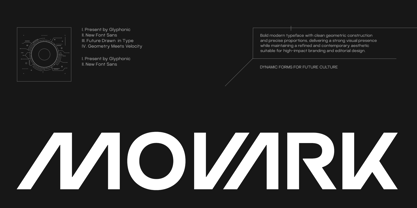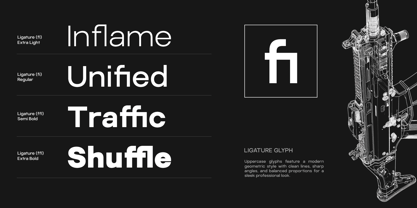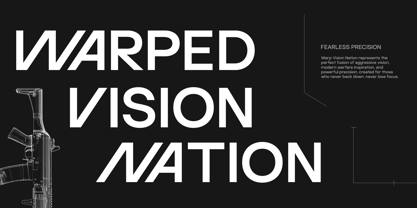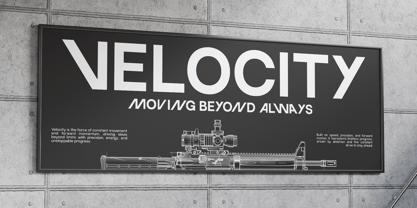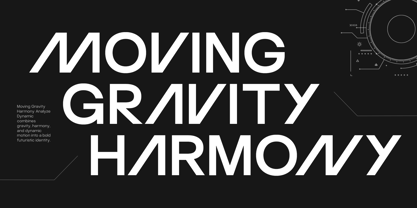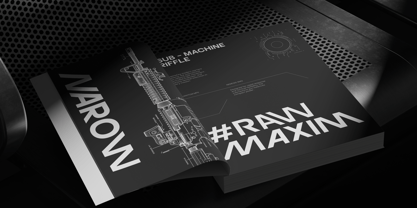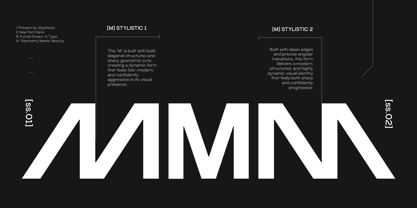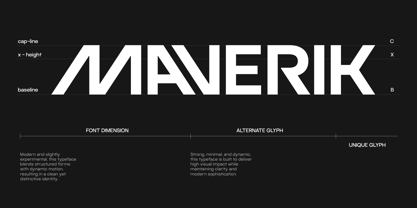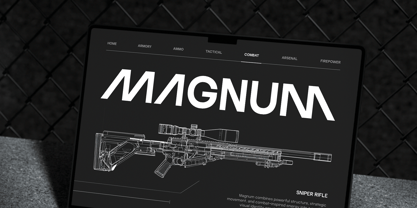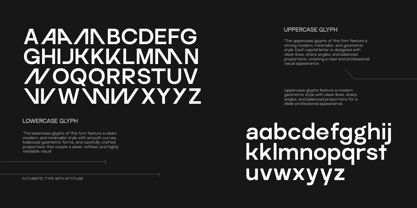
GC Movark
GC Movark – Logotype Modern Structure is a contemporary sans serif typeface designed with bold geometry, angular precision, and a strong futuristic character. Built to create memorable visual identities, Movark delivers a powerful typographic voice that balances modern innovation with structural clarity.
With its distinctive letterforms, sharp cuts, and dynamic construction—as seen in its custom-inspired shapes—GC Movark creates a unique logotype presence that feels progressive, technical, and highly recognizable. The clean geometric foundation enhances readability while maintaining a strong sense of individuality.
As a variable typeface, GC Movark offers flexible weight control, allowing designers to build impactful hierarchy and adaptable branding systems across multiple applications. From sleek technology branding to bold editorial headlines, the font maintains consistency while delivering a confident visual statement.
Crafted for modern branding, logotypes, digital products, gaming visuals, technology concepts, and futuristic design projects, GC Movark combines precision, structure, and innovation into a versatile contemporary typeface.
Features:
• Variable Font (Adjustable Weight Axis)
• Modern Sans Serif Construction
• Uppercase & Lowercase
• Numbers & Punctuation
• Custom Logotype-Inspired Letterforms
• Geometric & Angular Structure
• Multilingual Support (170+ Languages)
GC Movark — where geometry meets velocity and identity takes form.